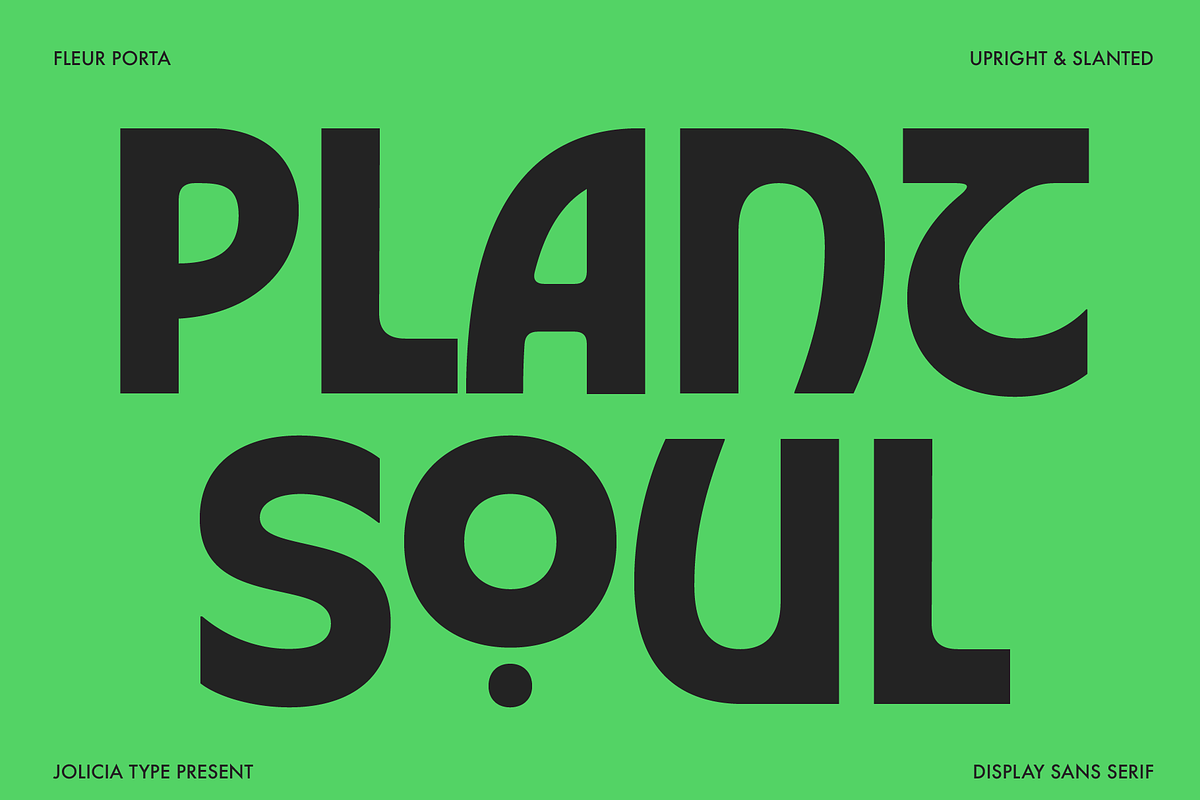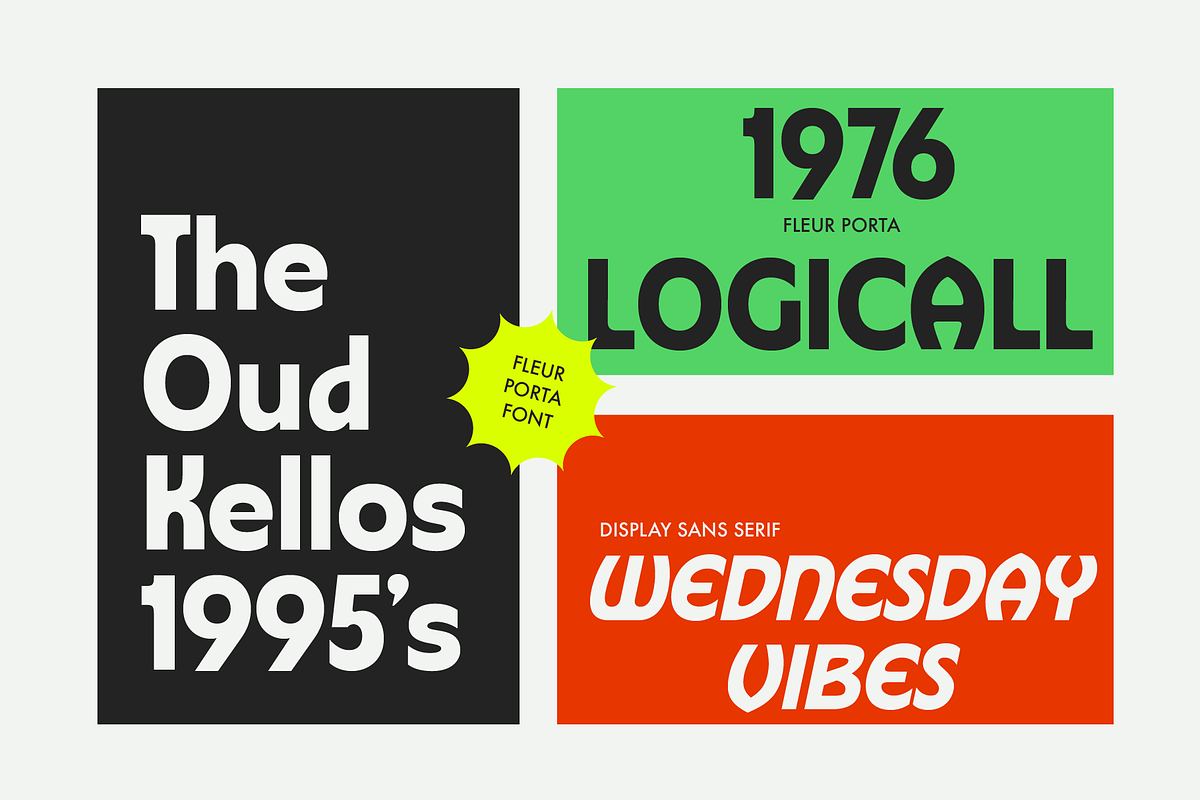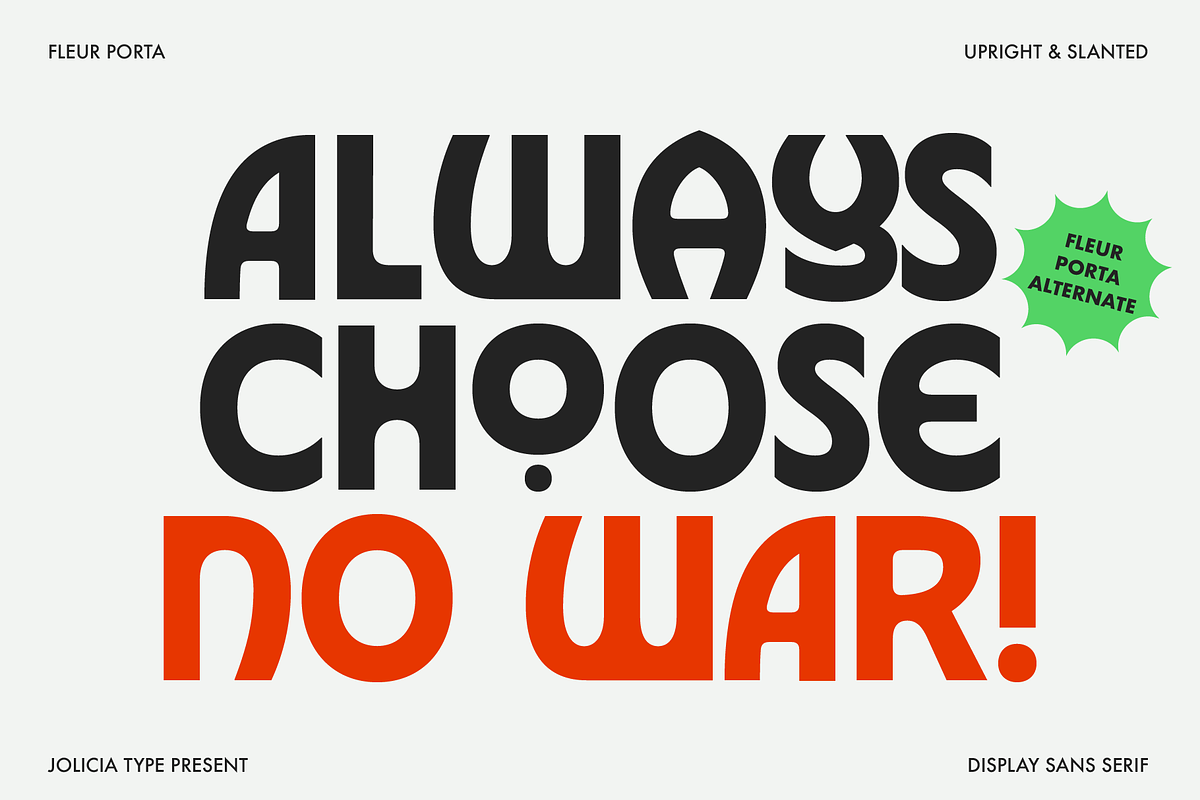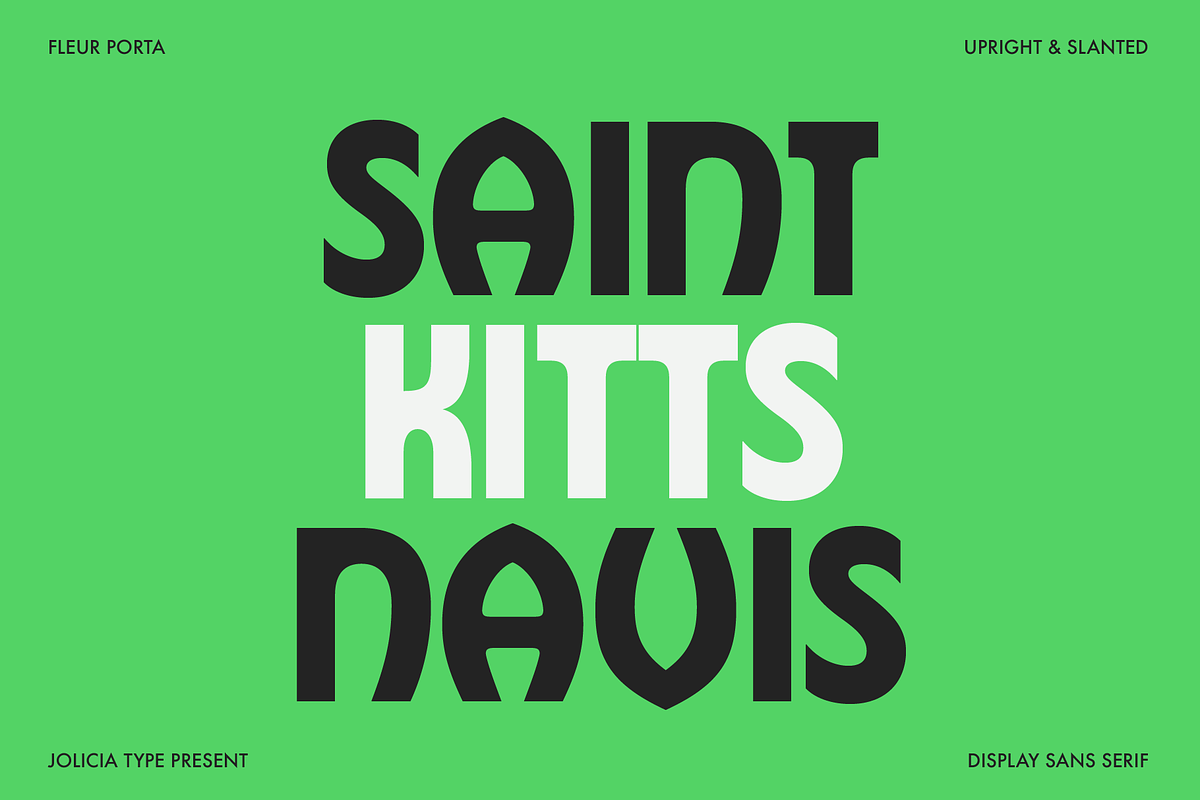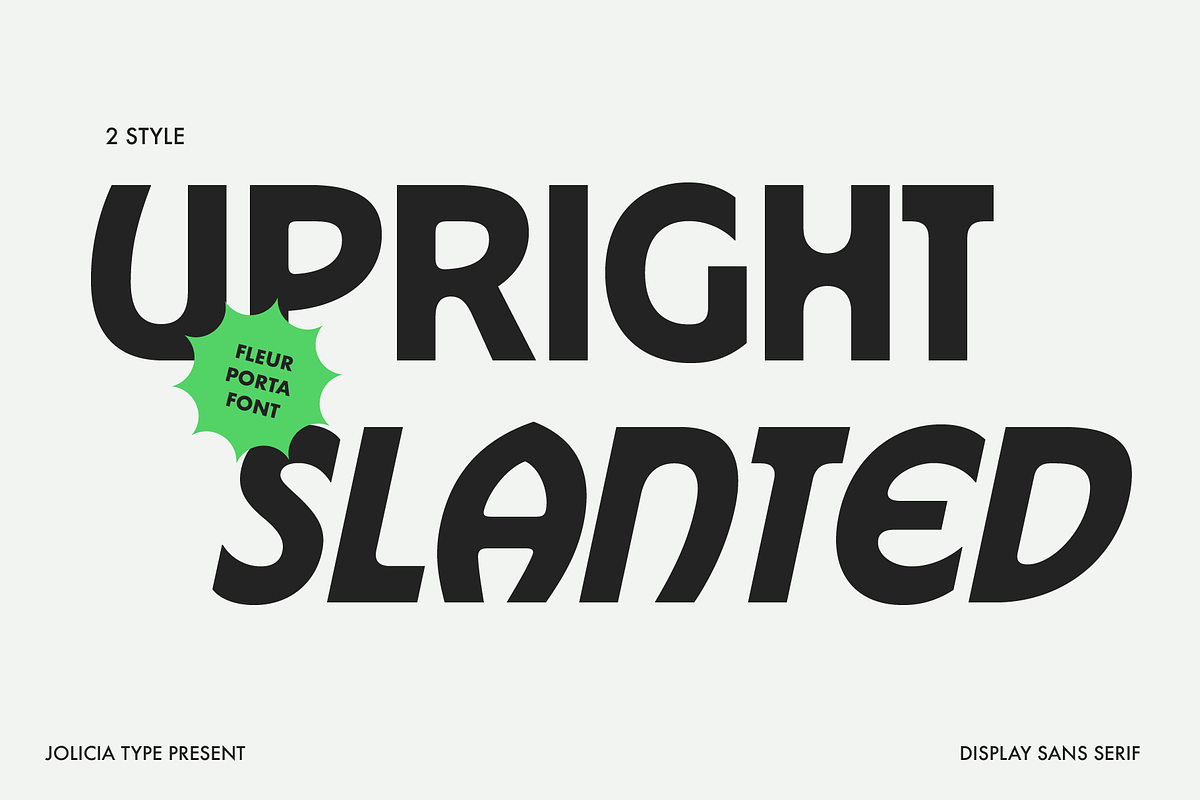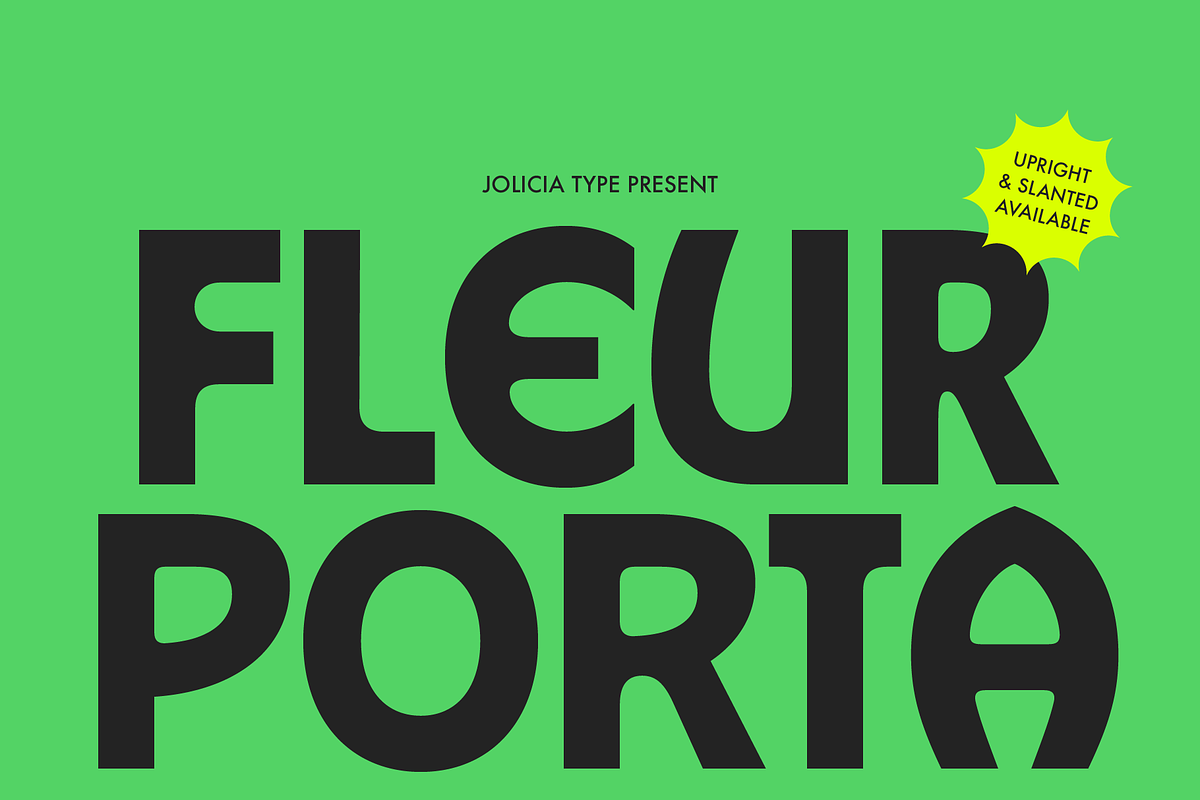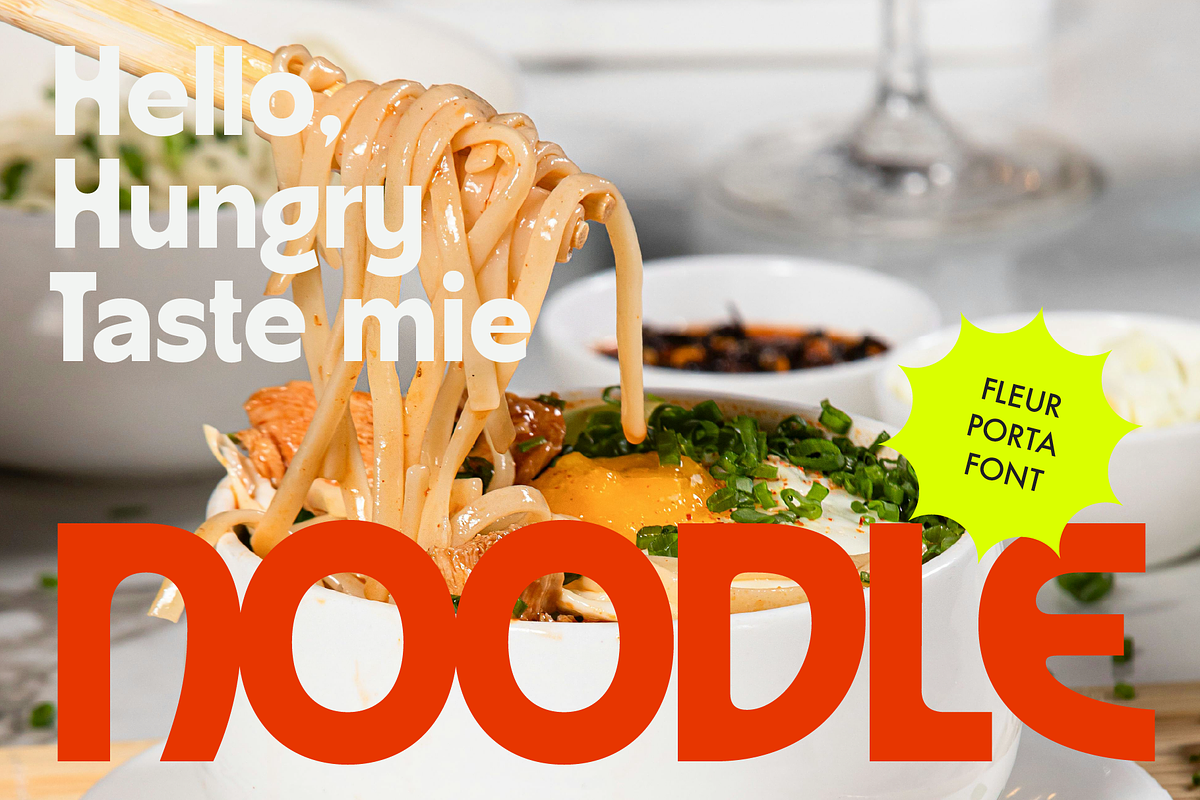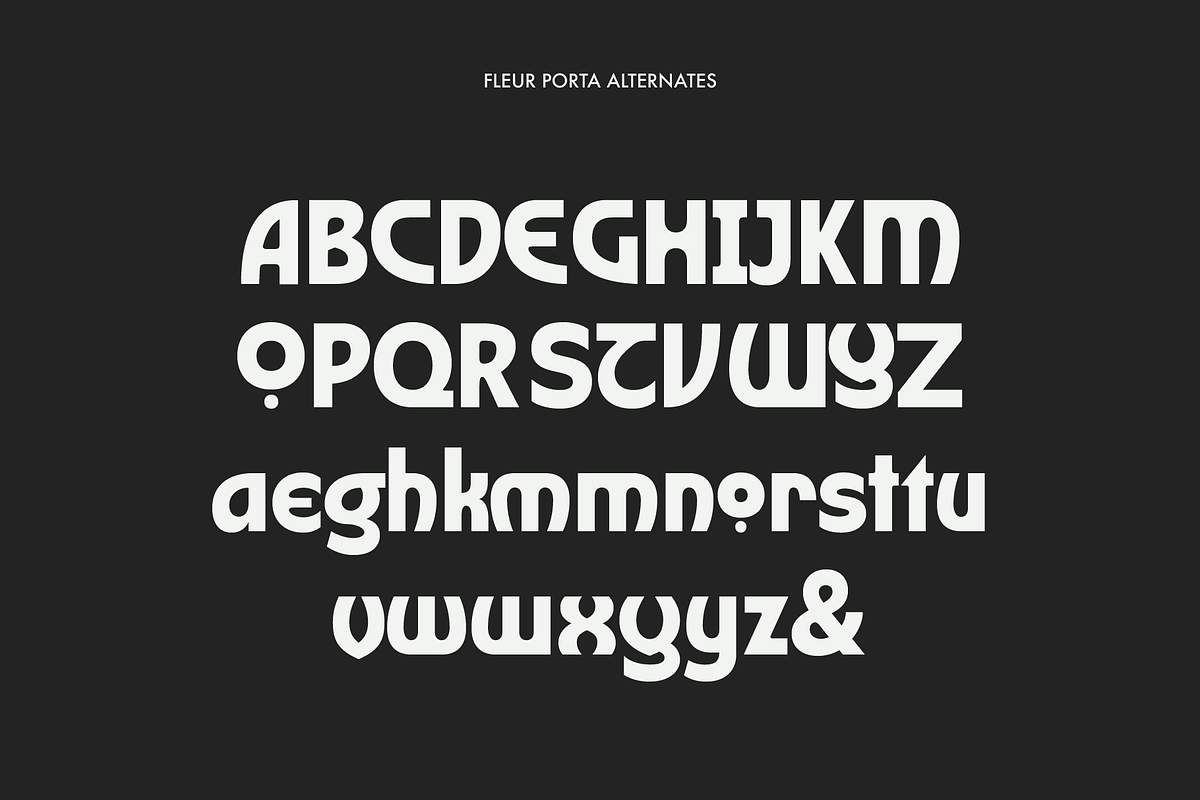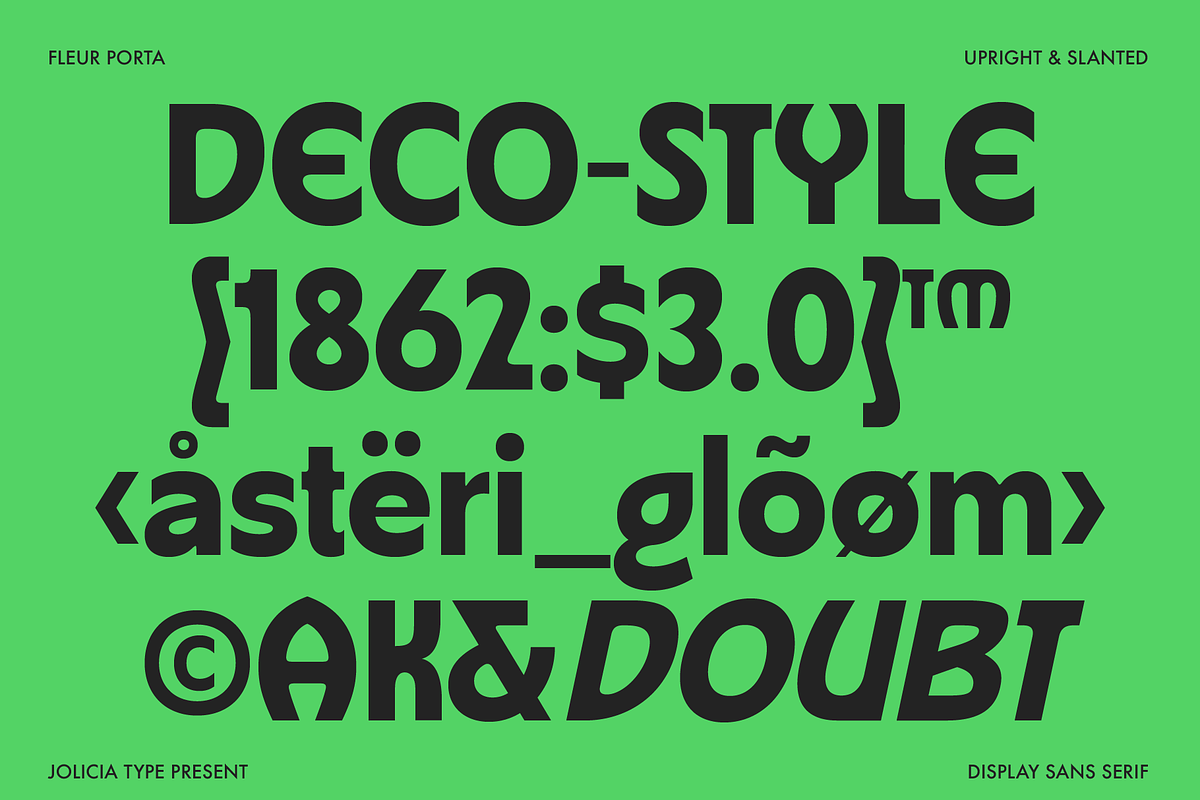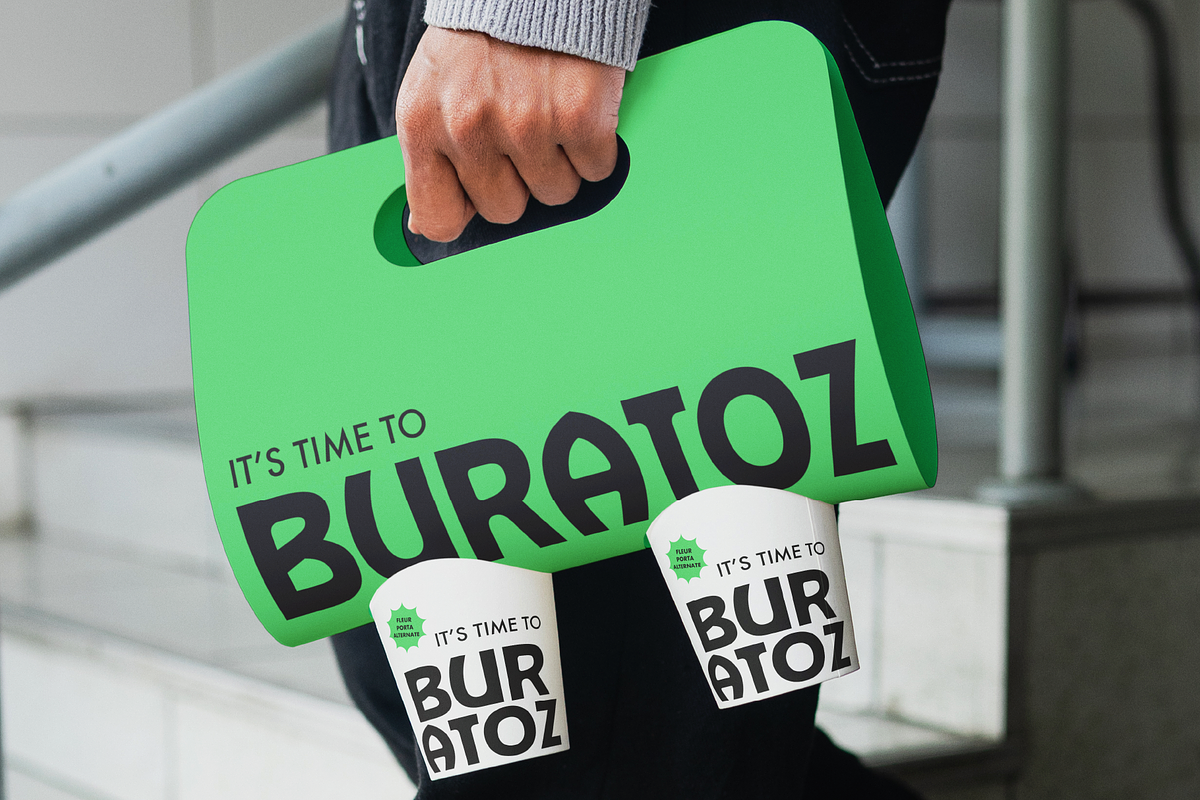
Fleur Porta | Display Sans
Fleur Porta is a distinctive display sans serif typeface that blends modern clarity with a subtle touch of Art Deco elegance. Designed to stand out, this font features clean geometric forms enriched with refined decorative details, creating a perfect balance between simplicity and sophistication.
The Art Deco influence appears in its graceful curves, stylish proportions, and unique letterforms, giving Fleur Porta a timeless yet contemporary personality. Its bold presence makes it highly effective for headlines, titles, posters, branding, and editorial designs that require a strong visual impact.
Fleur Porta comes with two versatile styles: Upright and Slanted, allowing designers to explore both a stable, classic look and a more dynamic, expressive feel within the same type family.
Fleur Porta is ideal for designers looking to add a hint of luxury and artistic flair without sacrificing readability. Whether used in fashion branding, creative layouts, or eye-catching typography, this font delivers a confident and elegant statement in every composition.